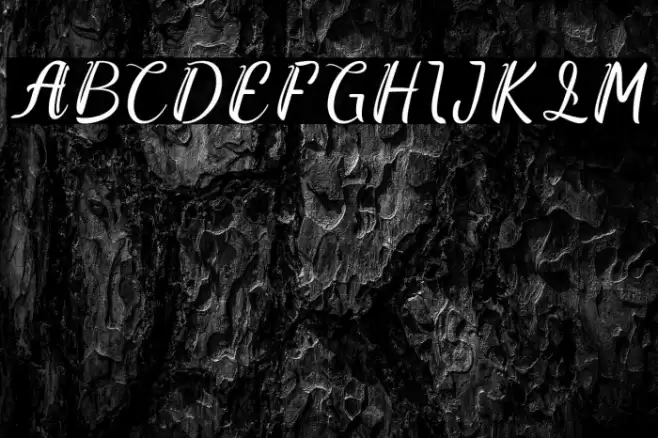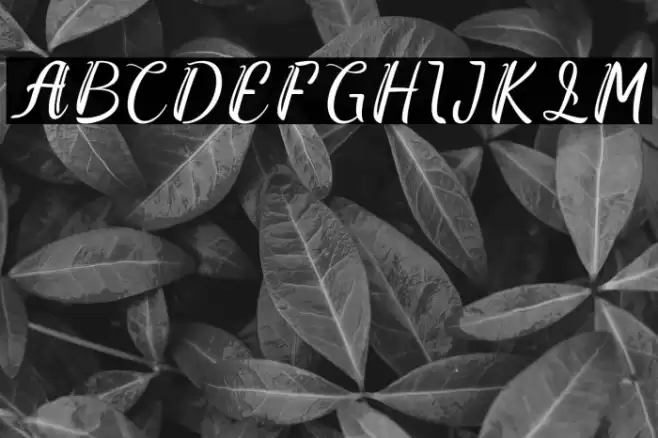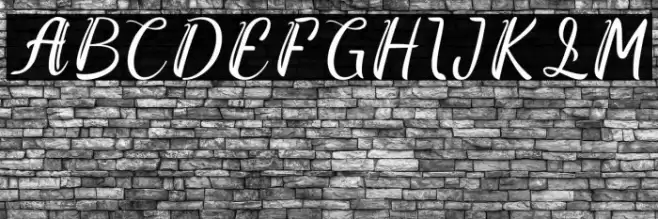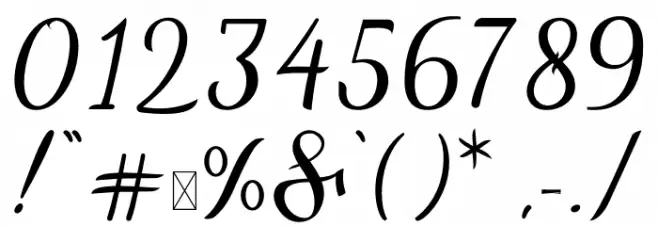
Sweety Loves Font
Sweety Loves Description
This font features a charming and elegant script style with smooth, flowing lines that create a sense of movement and grace. The uppercase letters are slightly more structured, maintaining a balance between formality and playfulness, while the lowercase letters exhibit a more fluid and cursive appearance. The numerals are clear and legible, complementing the overall aesthetic. Special characters are thoughtfully designed to match the font's style, making it versatile for various uses. The font's design is both sophisticated and approachable, making it suitable for a wide range of creative projects.
A charming and elegant script font with smooth, flowing lines from Uncategorized fonts.
- Font: Sweety Loves
- Proposed Projects: Ideal for wedding invitations, greeting cards, branding, and elegant packaging designs.
- Overall Style: Elegant
- Use Case: Logos, Invitations, Decorative text